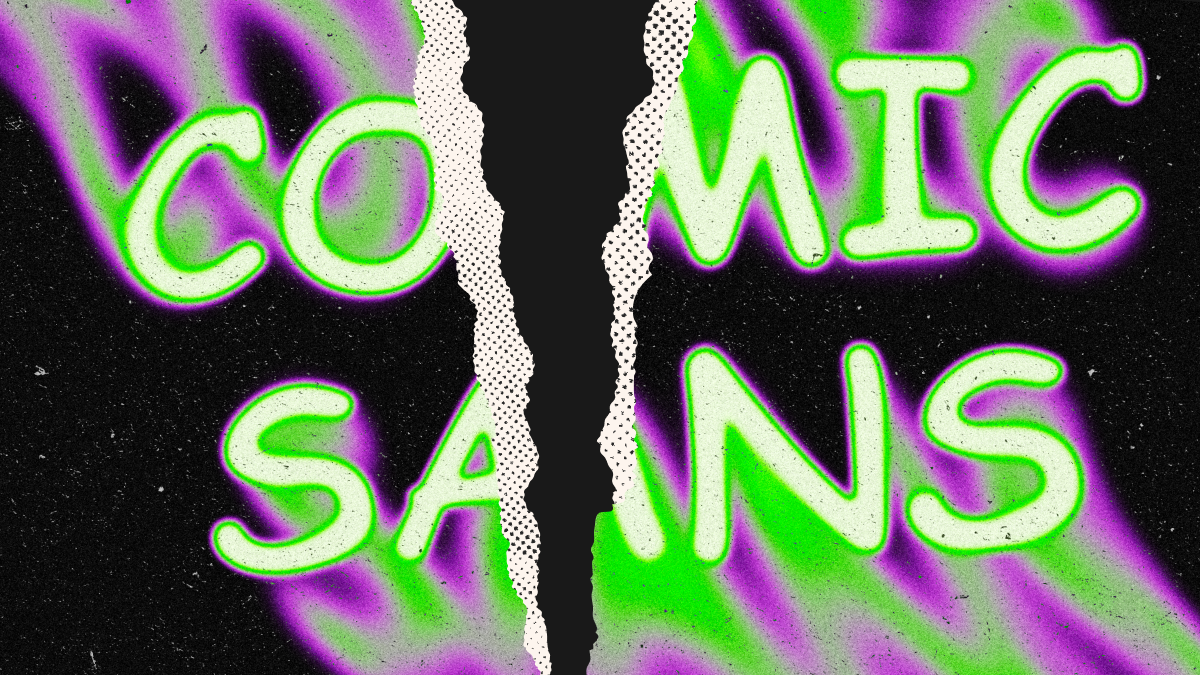
See how graphic novels like Watchmen, and Dark Knight Returns helped create the world's most divisive font.
Comic Sans is the world’s most divisive font.
We’ve been seeing it since the mid 90’s, first we saw it everywhere: CD’s, posters, casual events, amateur websites, comics, etc.; it broke the molds because it was a friendly font, not as formal as the known ones (Times New Roman, we’re all watching you) so the new uses for this typeface were the most popular mostly amongst kids and children’s events.
Nowadays, Comic Sans ms is one of the least favourite fonts of all the existing ones, since for some people find it outdated, childish, and informal.
Comic Sans is a typeface conceived in the lead-up to Microsoft’s Windows 95.
After receiving a copy of Microsoft Bob, a comic software that featured a dog called Rover designed to help young people use a computer, font designer, Vincent Connare decided the speech bubbles displaying the dialogue looked a bit off. They were using Times New Roman. Connare thought it was an odd choice for a comic dog.
So, he decided to design a new font for the program.
He looked at graphic novels like Watchmen, and Dark Knight Returns and mimicked the style of the hand lettering.
There were no sketches or studies – it was just me drawing with a mouse, deleting whatever was wrong, I didn’t have to make straight lines, I didn’t have to make things look right, and that’s what I found fun. I was breaking the typography rules.
Connare told The Guardian.
When someone suggested the “p” and “q” mirror each other perfectly, he said, “No, it’s supposed to be wrong!”
But Connare missed the deadline to make it into Windows 95. However, Comic Sans was eventually included in a Windows 95 Plus Pack, and later became a system font.
I started to see it everywhere …and then the backlash began.
Connare told The Guardian.
Since then Comic Sans has been dividing the internet.
But the font itself isn’t necessarily the problem. It’s the way people use it that constantly strikes up controversy.
To help illustrate this point, here are a few situations in which Comic Sans is never appropriate:
Unless you’re a children’s daycare center you shouldn’t be using Comic Sans in your logo.
Think of how silly some of the most famous logos in the world would look if they used Comic Sans:
You shouldn’t be using Comic Sans on important documents like medical results, arrest warrants, and driver’s licenses. No.
You shouldn’t be using Comic Sans for breaking news.
Finally, you shouldn’t be using Comic Sans for somber occasions like funerals.
As a font, Comic Sans is no more controversial than any other. But, its misuse has made it the most divisive font around.
It does get misused, usually because somebody just loves it, I couldn’t believe people could be so worked up over something as simple as a font.
Tom Stephens, a program manager at Microsoft told The Guardian.
But they were back then, and they still are today.